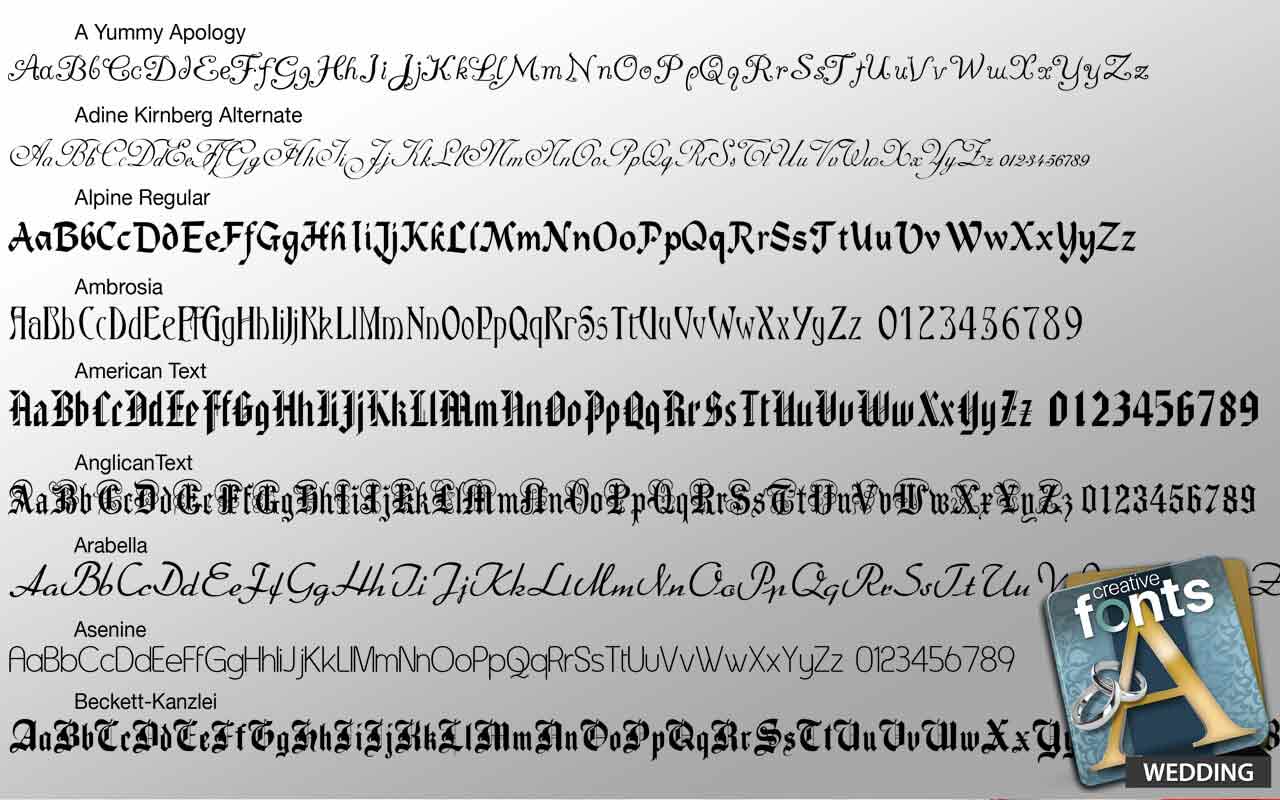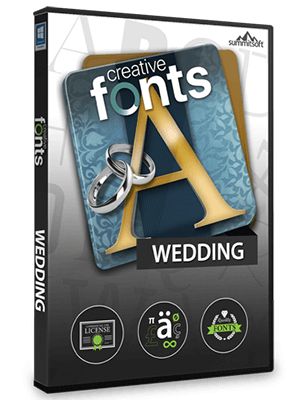
Do you want to make your wedding unique and special? Printing your own invitations, table cards, tent cards and more is a great way to create a unique and elegant occasion. Our collection of Wedding Fonts includes 40 elegant and beautiful fonts in a variety of styles, perfect for your special occasion.
Perfect for many different occasions: Wedding Fonts includes many different styles of fonts that are perfect for everything related to your wedding: cards, invitations, thank you’s, tent cards, save-the-date notes, photo captions, and more! Wedding Fonts is also great for more than just weddings: party invitations, scrapbooks, holiday cards and letters, and print projects just to name a few! |
Creative Fonts Wedding features:
- Wedding Fonts includes 40 beautiful font styles that will add elegance and creativity to any wedding project.
- Perfect for cards, invitations, thank you’s, tent cards, save-the-date notes, photo captions, and more!
Full Character Sets: Fonts you may buy elsewhere may only have uppercase and lowercase characters – some don’t even have numbers or standard symbols. Each and every font contains a full set of characters plus all of the international and foreign language symbols and special characters. |